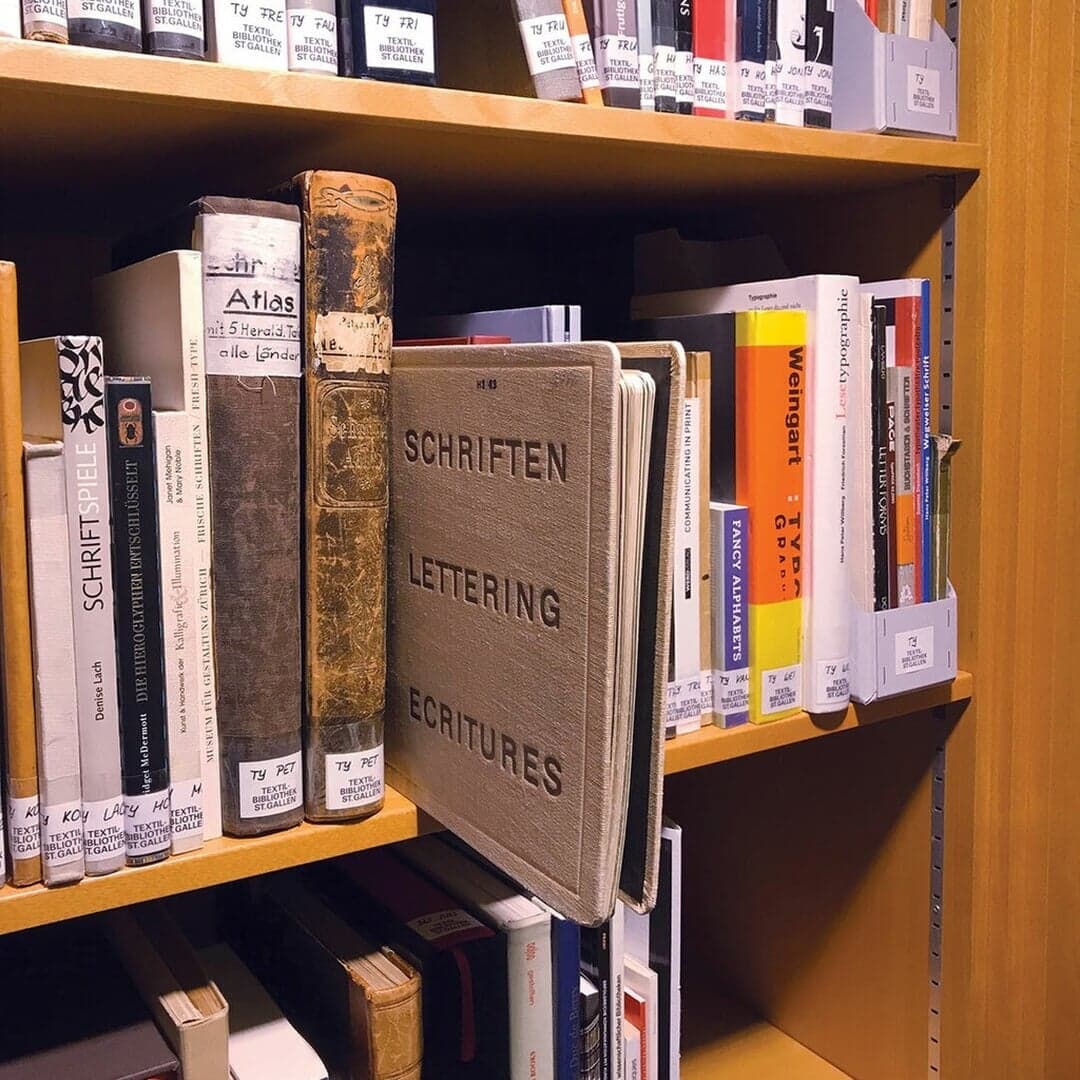
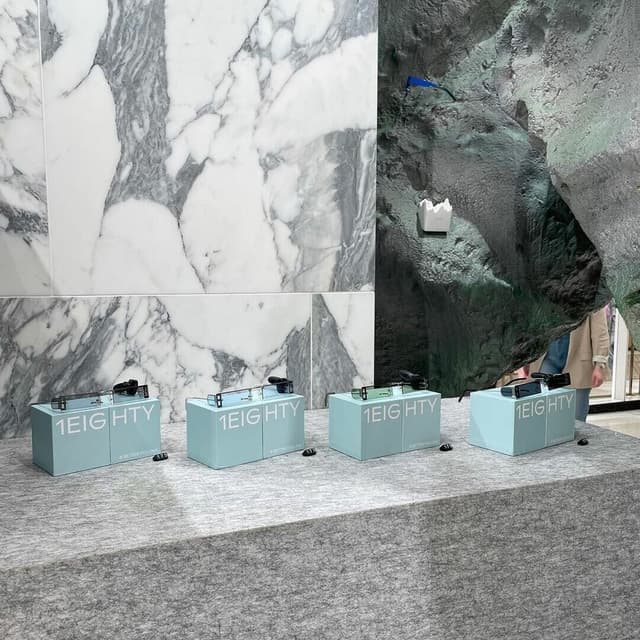
Dinamo created a bespoke typeface for Kunsthalle Zürich’s 2015 redesign led by Dan Solbach. Inspired by Walter Käch’s mid-twentieth-century grotesque 'Rauchwaren', the new typeface balances historical reference with contemporary functionality, adapting proportions and details to suit the institution’s evolving visual identity.
Set in Rauchwaren